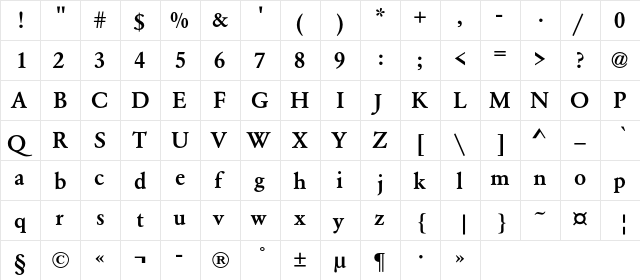
AZGaramondC Bold
Design Context for AZGaramondC Typeface
AZGaramondC is a composed and adaptable typeface that performs quietly and consistently across a wide range of design contexts. Its bold stroke weight gives it real presence on the page.
Pro Tip: Pair AZGaramondC with a font of contrasting weight or personality to build a more expressive typographic hierarchy.